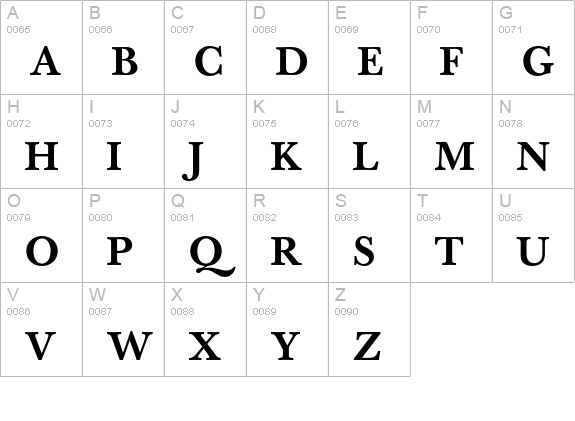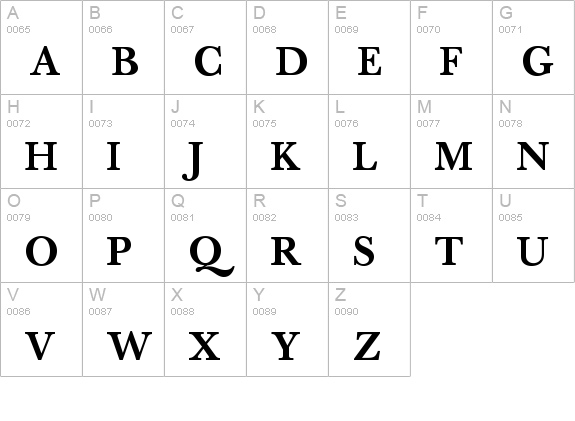
Berthold Baskerville Book Medium is a comfortable, highly readable variant in the Berthold typeface family \xE2\x80\x94 well suited to long-form body text, articles, and editorial content.
The Berthold Baskerville Book Medium font is a timeless and elegant typeface that exudes sophistication and class. With its classic serif style and medium weight, it is perfect for conveying a sense of tradition and formality. The crisp letterforms and balanced proportions make it a versatile choice for a wide range of design projects, from branding to editorial layouts. What sets this font apart is not only its visual appeal but also the fact that it is available for free download at FontsMarket.com. This means that you can access this high-quality typeface without any cost, making it a valuable addition to your font library. Whether you're a designer looking for a reliable serif font or a business owner wanting to elevate your branding, Berthold Baskerville Book Medium is a fantastic choice that won't break the bank. Download Berthold Baskerville Book Medium font for free today and experience the timeless beauty and versatility of this classic typeface. Elevate your designs with this elegant font and make a lasting impression on your audience.